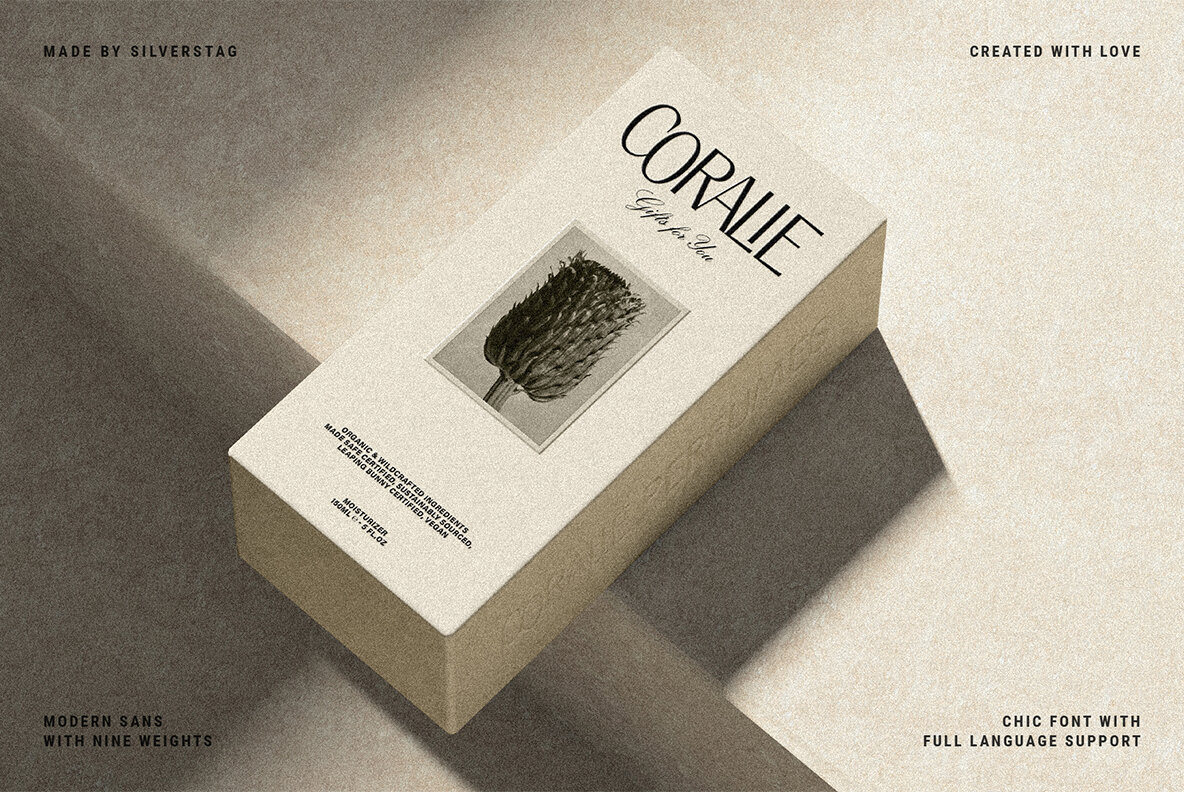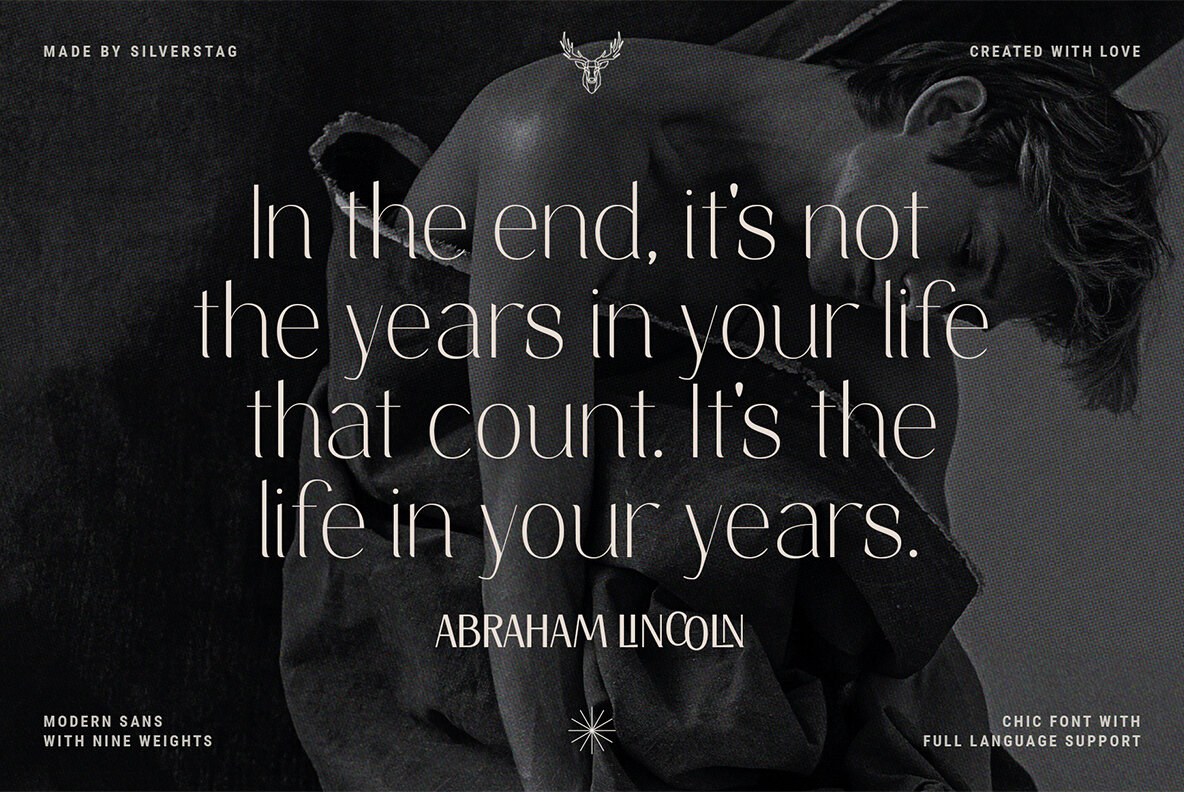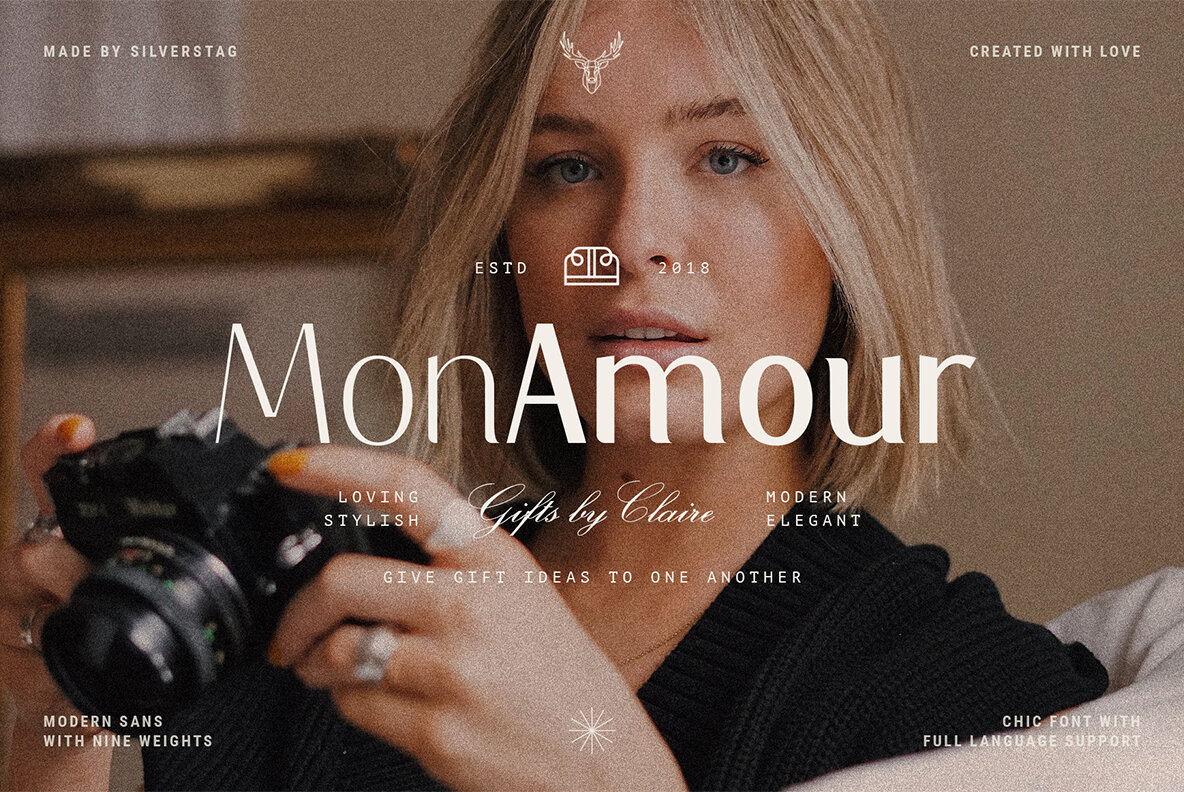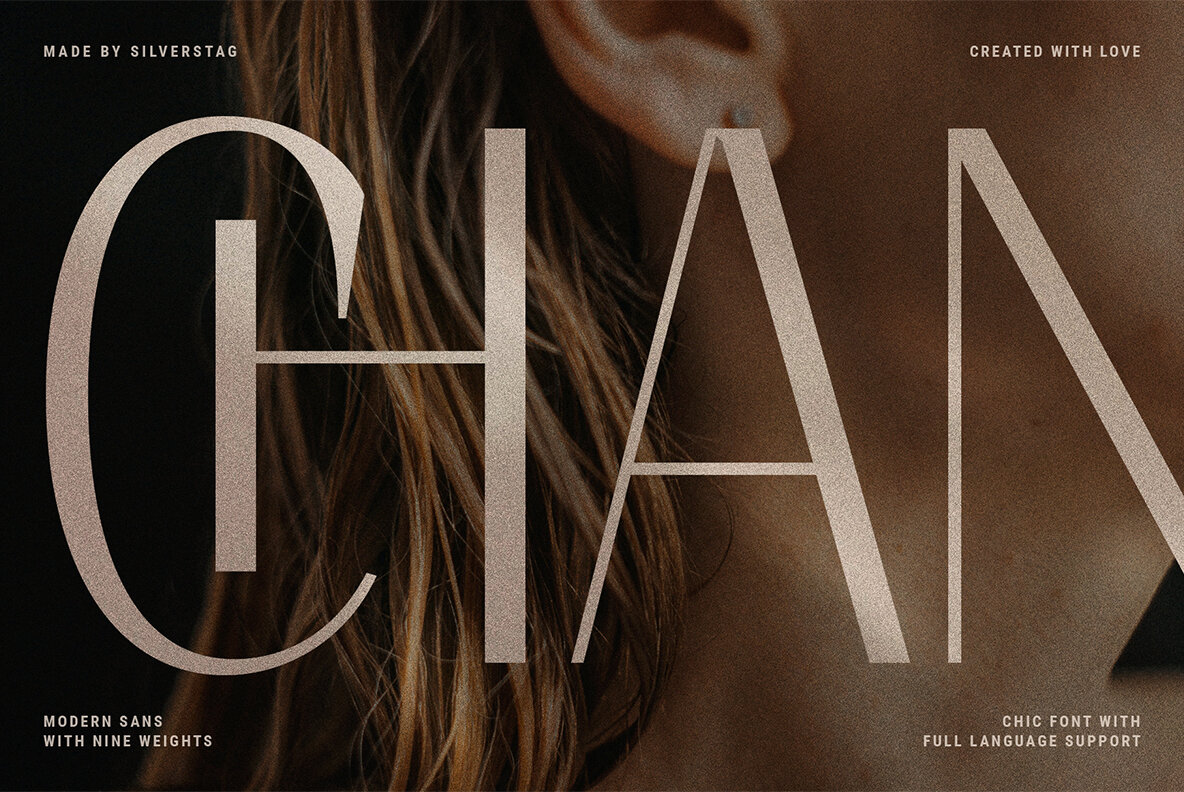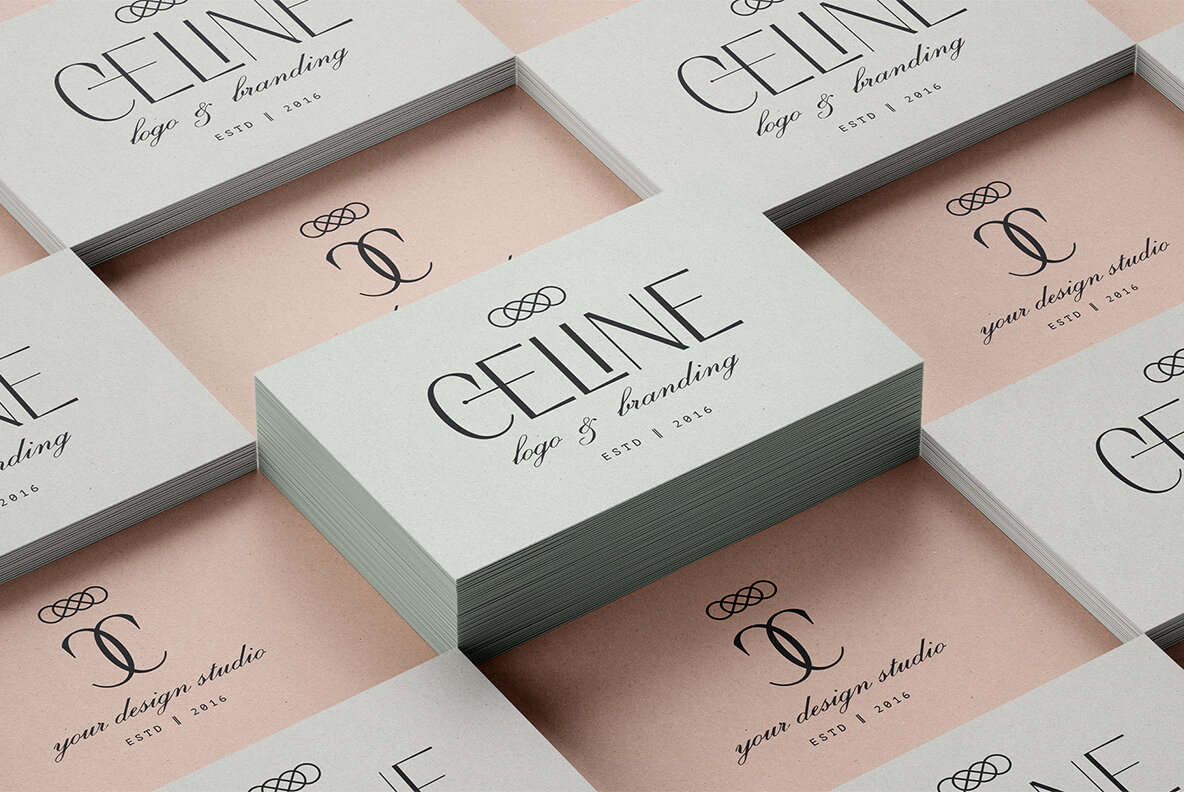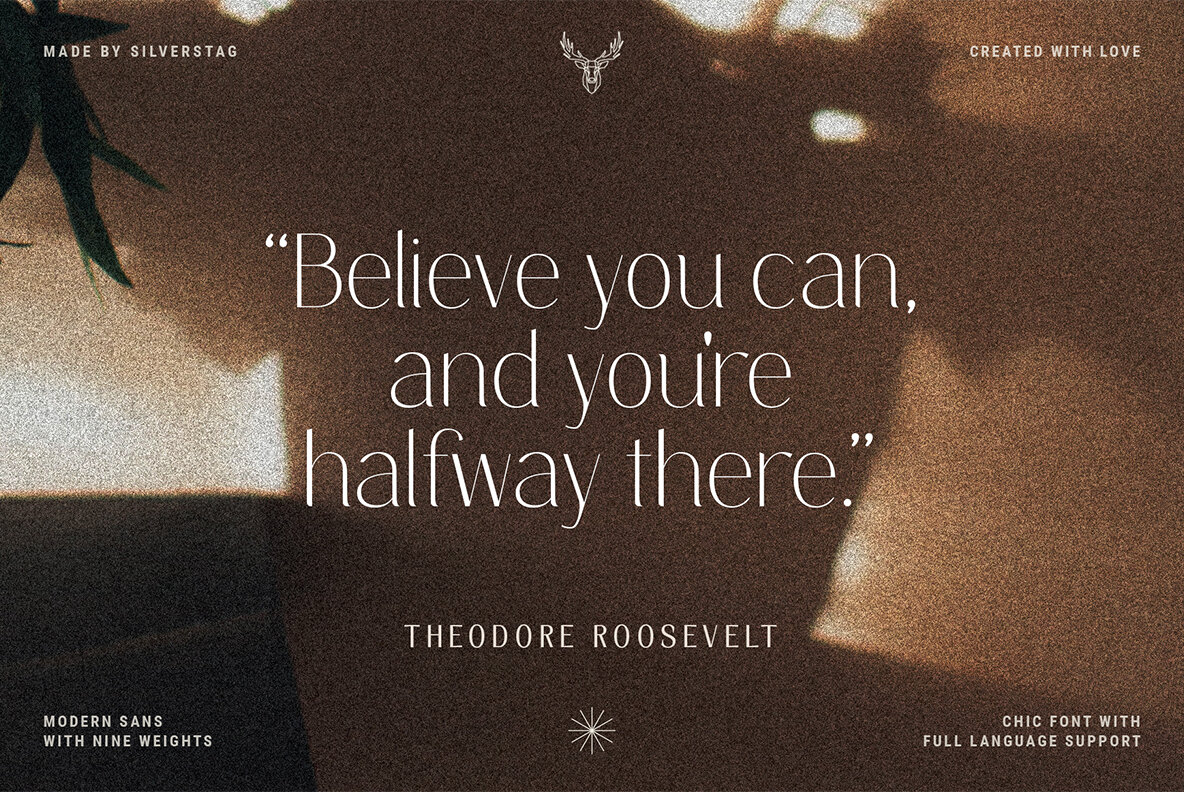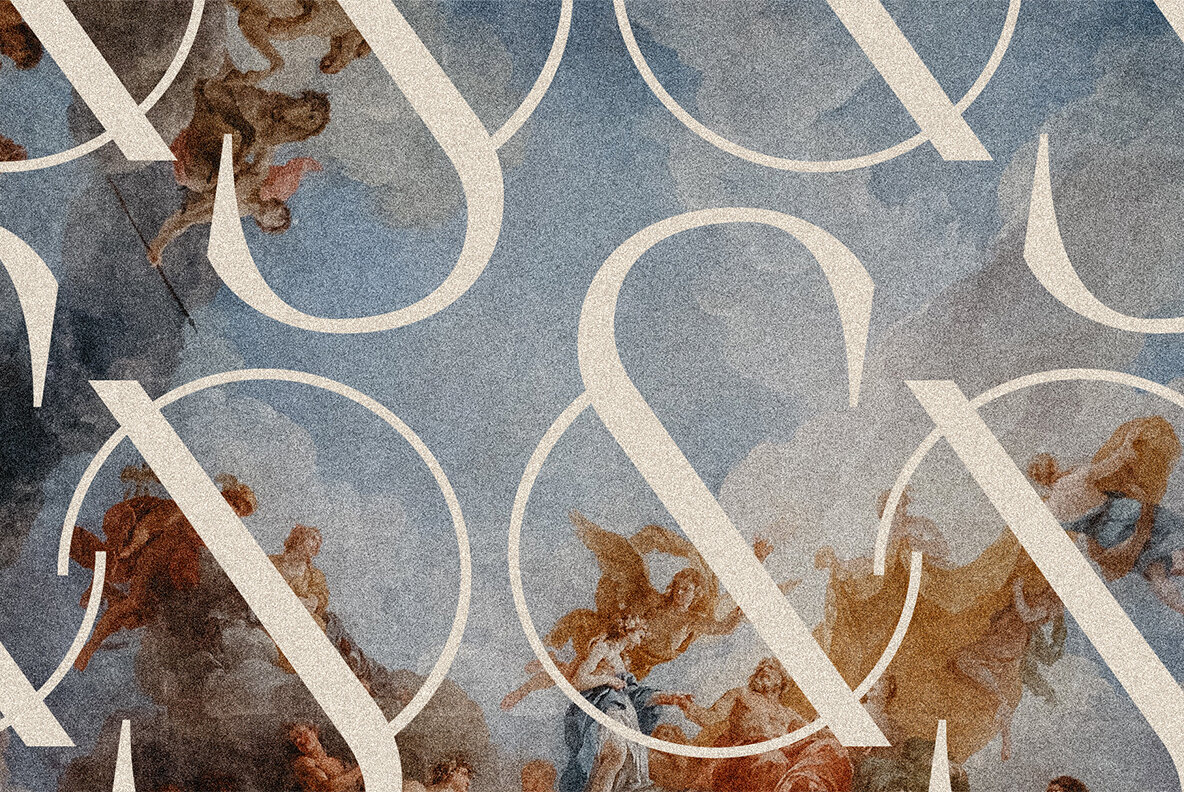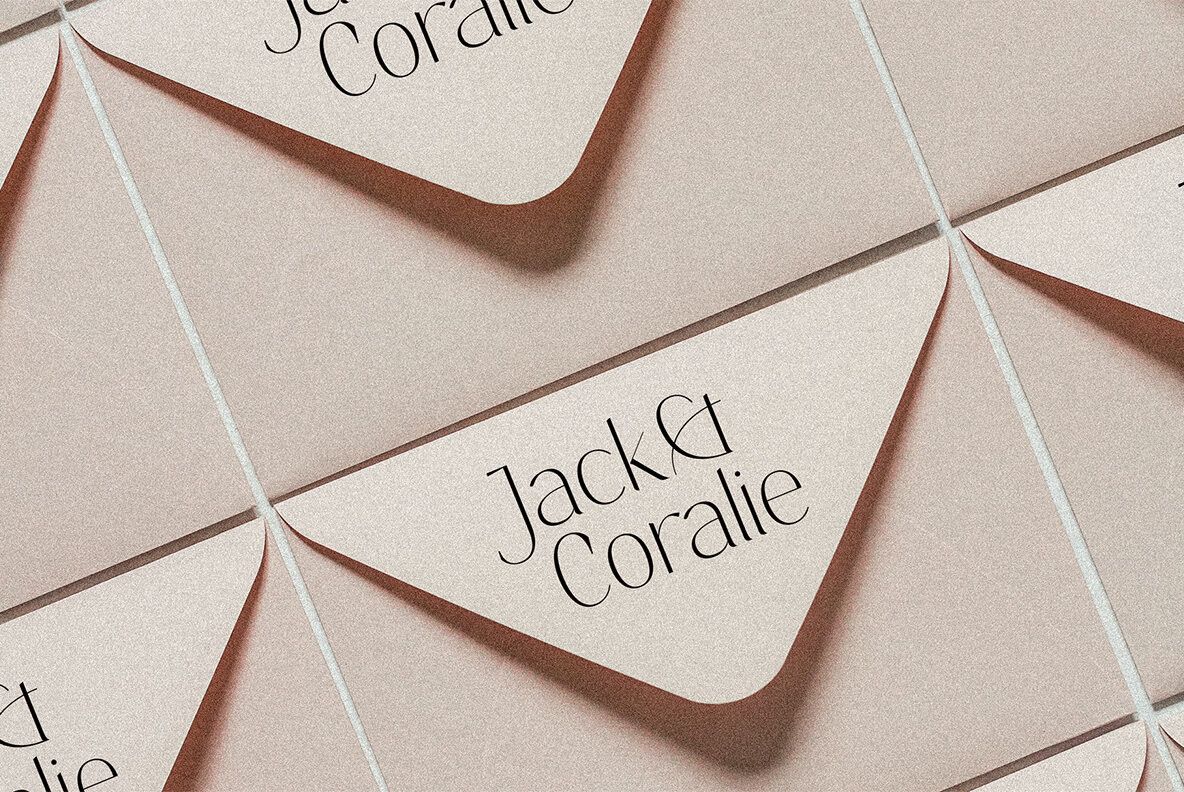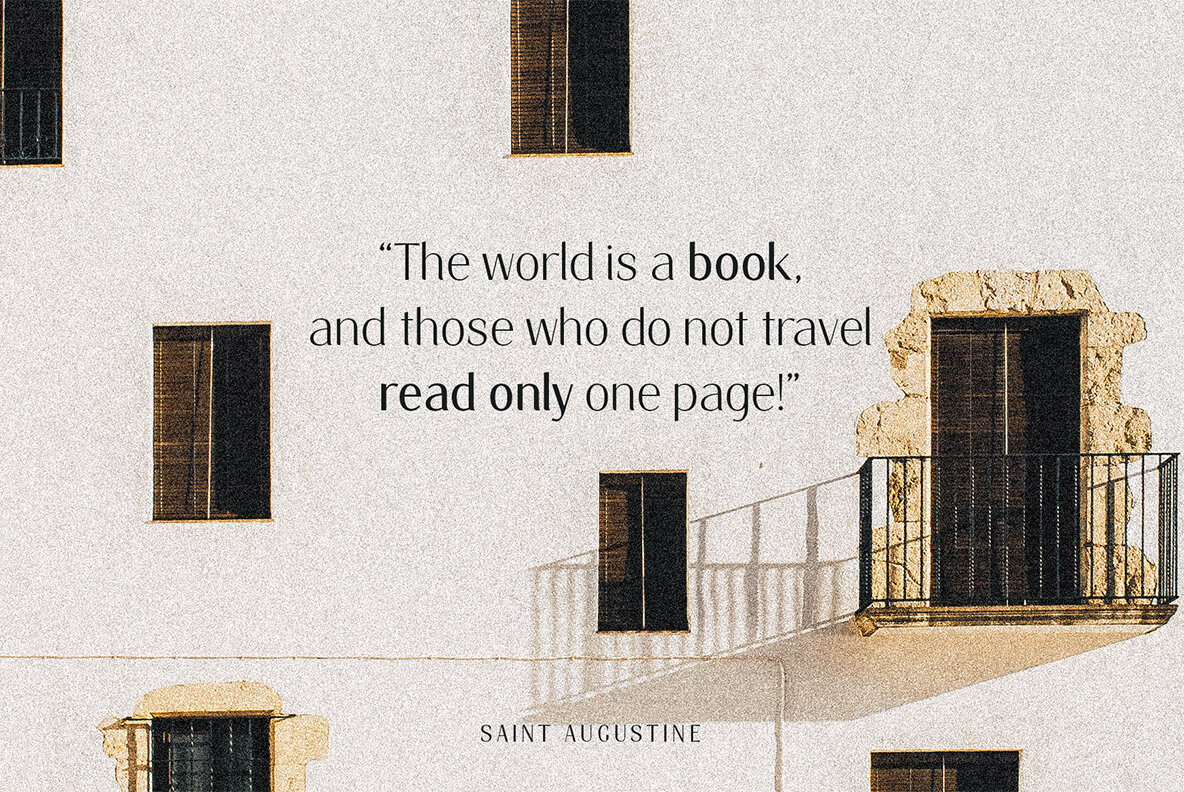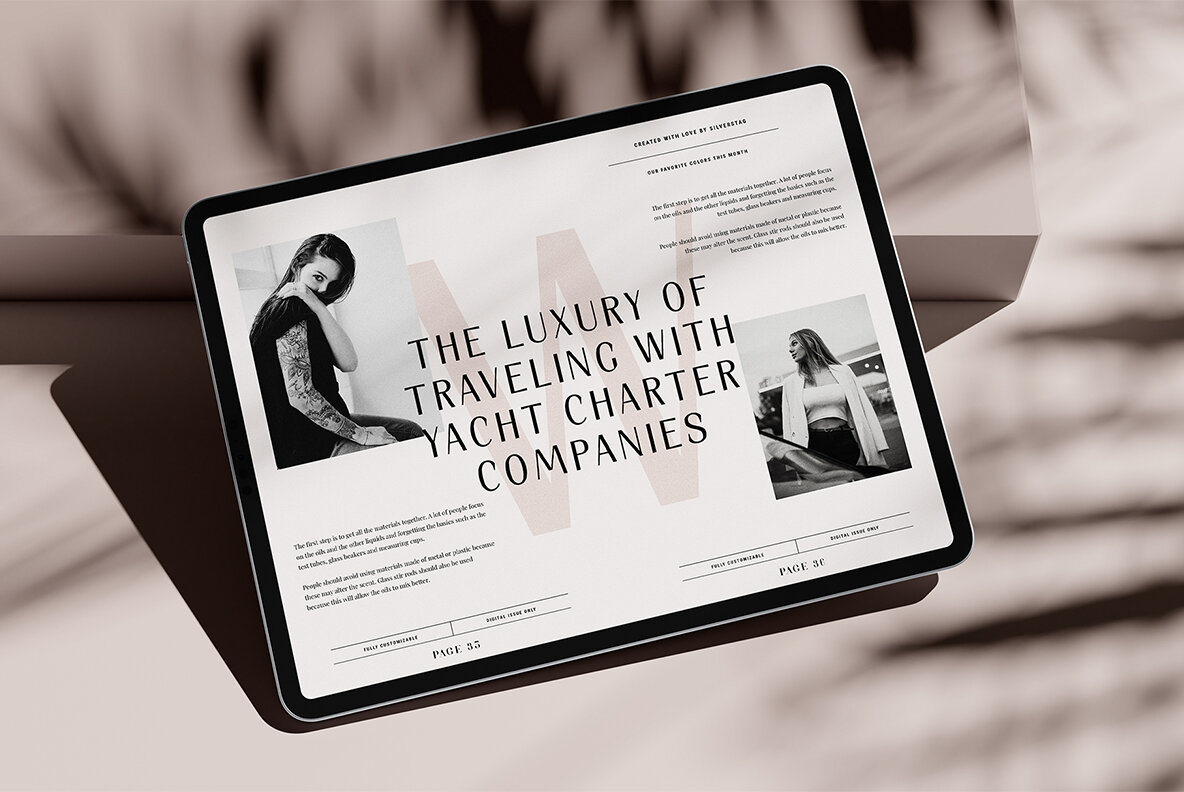
Elio And Oliver Font
I am thrilled to unveil my latest creation, the Elio & Oliver font family. Inspired by the timeless elegance and undeniable allure of Italy, this sans serif typeface captures the essence of sophistication and refinement. Named after the main protagonists of the beloved novel "Call Me by Your Name," Elio & Oliver is a testament to the power of passion, beauty, and the transcendent experiences that shape our lives. Just like their story, this font aims to evoke emotions and create a lasting impression. With nine meticulously crafted weights ranging from the delicate Ultra Light to the bold intensity of Black, Elio & Oliver offers a spectrum of possibilities. Each weight is thoughtfully designed to ensure versatility and harmonious visual aesthetics across various design projects. Intricate and purposeful, the font pack boasts over 30 ligatures that seamlessly combine letters, elevating the fluidity and legibility of your typography. These ligatures add an extra touch of sophistication to your designs, making them truly stand out. Recognizing the importance of language diversity, Elio & Oliver is equipped with full language support, enabling you to effortlessly communicate your message to a global audience. From English to Italian, French to Spanish, and beyond, this font embraces the richness and cultural nuances of different languages. Whether you're working on editorial layouts, branding projects, or digital interfaces, Elio & Oliver will infuse your designs with an air of refined elegance. It is the embodiment of style and grace, effortlessly capturing attention and leaving a lasting impression on viewers. Step into the world of Elio & Oliver, where every letter tells a story and every curve is a testament to the power of design. It's time to elevate your creative projects and evoke the spirit of Italian chicness with this exquisite typeface. Discover Elio & Oliver and let your designs speak the language of timeless elegance. If you end up publishing your designs on Instagram, tag me - @silverstagco and I will make sure to showcase your design and work to my audience as well! Elio & Oliver - Elegant Sans Serif Includes: